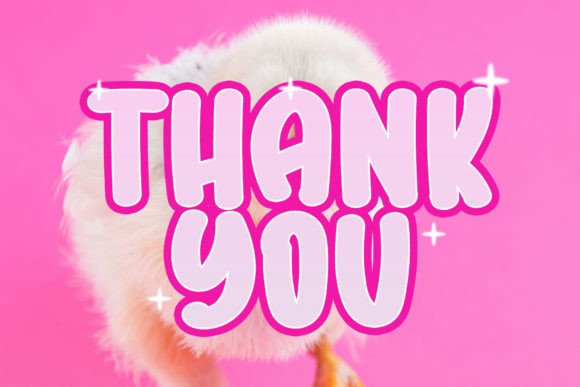
The Ultimate Font for Sports-Inspired Designs: Cutely Pinky
As a designer, I’ve had my fair share of struggles when it comes to finding the perfect font for a project. I recall working on a sports-themed design for a client, pouring my heart and soul into the project, but feeling like something was off. The design was great, but the font just didn’t cut it. It was then that I stumbled upon Cutely Pinky, a robust font that instantly drew attention and added a vibrant touch to my design. In this article, I’ll share my experience with Cutely Pinky, its features, and how to make the most of it in various design platforms.
An Honest Review of Cutely Pinky
What I Love About Cutely Pinky
- ✨ Attention-grabbing bold feel: Cutely Pinky is designed to make a statement, and it does just that. Its robust and powerful look is perfect for sports-inspired designs, movie posters, and any project that requires a bold touch.
- ✅ Versatility: This font is suitable for a wide range of projects, including sports design, team and jersey designs, league and movie posters, documentaries, films, logos, posters, games, book covers, headlines, titles, and many more.
- 🎉 Vibrant and energetic: Cutely Pinky adds a pop of color and energy to any design, making it perfect for projects that require a youthful and dynamic feel.
While Cutely Pinky is an excellent font, there are a few things to keep in mind:
- 🤔 Limited use in formal designs: Due to its bold and playful nature, Cutely Pinky might not be the best fit for formal designs, such as corporate logos or business cards.
- ⚠️ Legibility at small sizes: As with any bold font, Cutely Pinky might be challenging to read at small sizes. It’s best to use it at larger sizes to ensure optimal legibility.
A Practical Guide to Using Cutely Pinky
- Experiment with OpenType features, such as glyphs and stylistic alternates, to add more personality to your design.
If you’re looking for similar fonts or alternatives to Cutely Pinky, here are a few options:
- Impact: A classic bold font with a similar feel to Cutely Pinky. Use Impact for projects that require a strong, assertive look.
- Museo: A modern sans-serif font with a similar energetic vibe to Cutely Pinky. Use Museo for projects that require a clean and youthful look.
- Arial Black: A bold and sturdy font with a similar feel to Cutely Pinky. Use Arial Black for projects that require a strong and dependable look.
- Akzidenz-Grotesk: A geometric sans-serif font with a similar industrial feel to Cutely Pinky. Use Akzidenz-Grotesk for projects that require a bold and edgy look.
The Backstory of Cutely Pinky
Cutely Pinky was designed with the intention of creating a bold and attention-grabbing font for sports-inspired designs. The designer aimed to create a font that would add a vibrant touch to any project, while also being versatile and easy to use. Although the designer’s identity is unknown, it’s clear that they succeeded in creating a font that’s both fun and functional.
Q: What type of projects is Cutely Pinky suitable for?
A: Cutely Pinky is suitable for a wide range of projects, including sports design, team and jersey designs, league and movie posters, documentaries, films, logos, posters, games, book covers, headlines, titles, and many more.